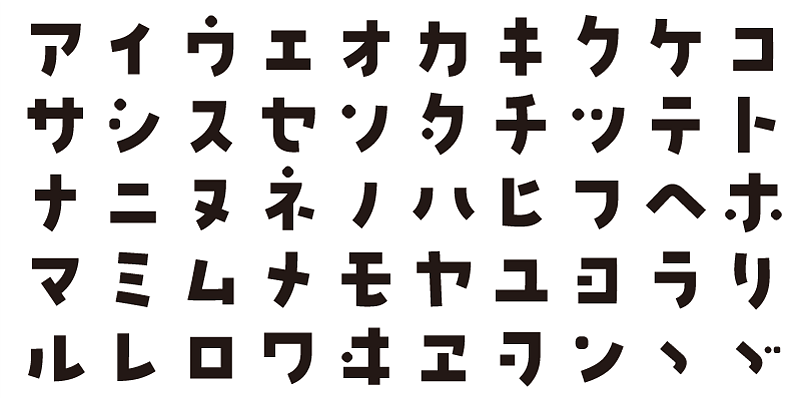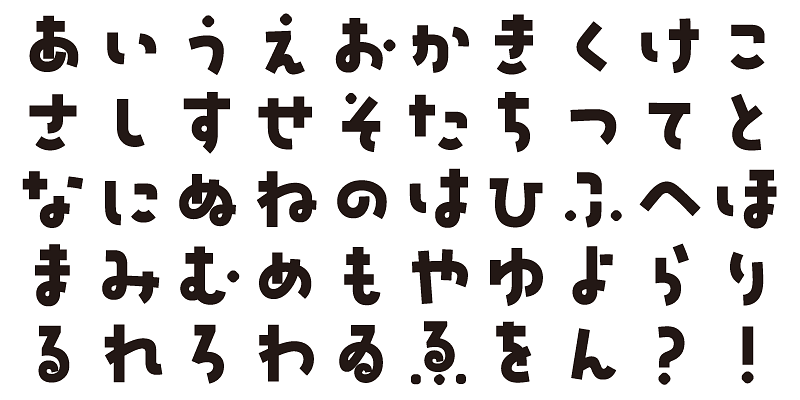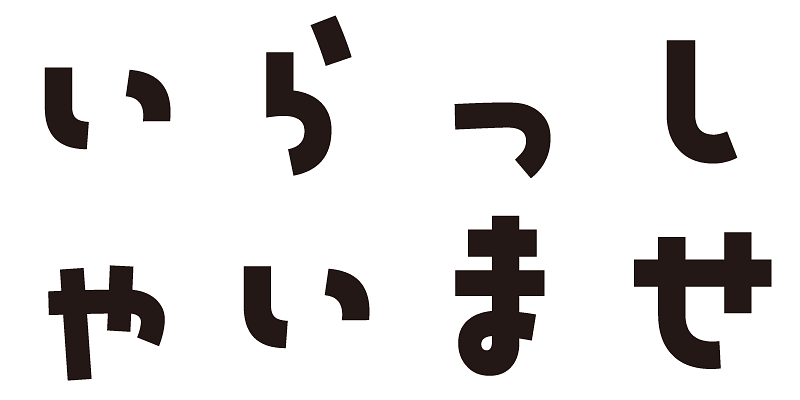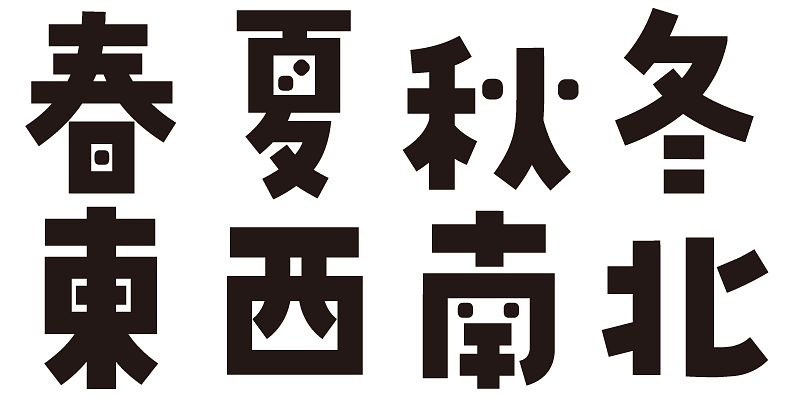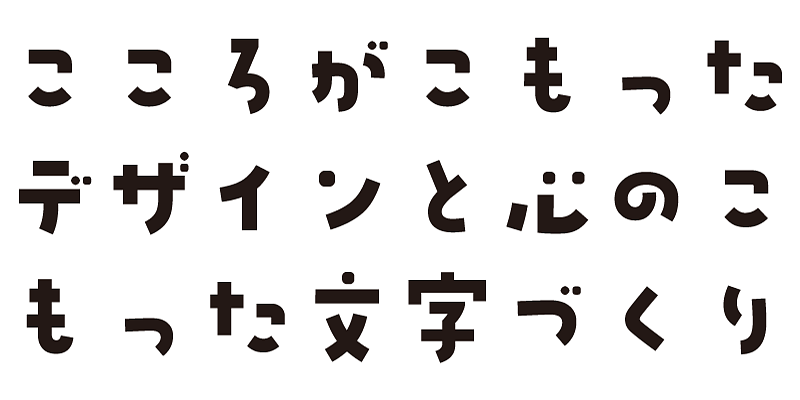
Kurukuru, korokoro: spinning like stones or dice, rolling like a rugby ball. A typeface born from the image of free, playful motion.
This font includes top 1,000 kanji characters chosen from character frequency tables made by newspaper companies, publishing houses and linguistic research institutes, plus about 400 alphanumeric, kana characters and punctuation marks.